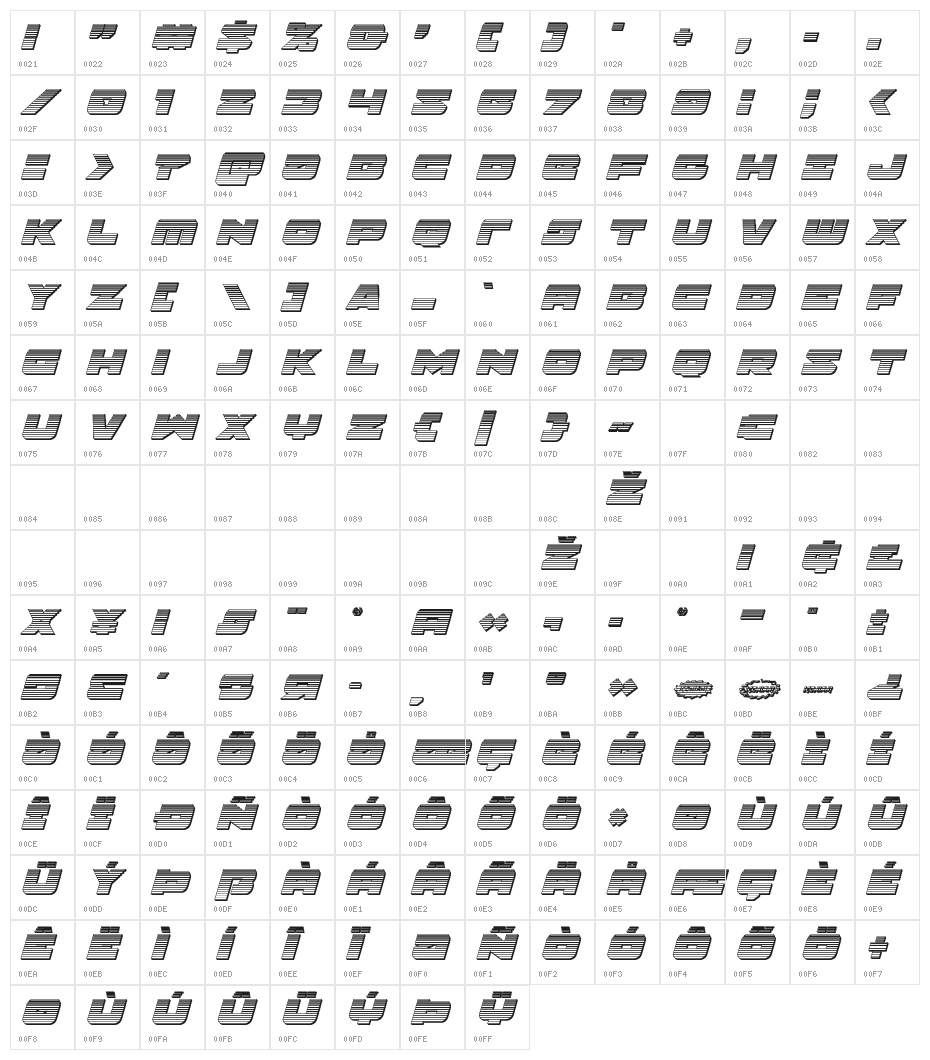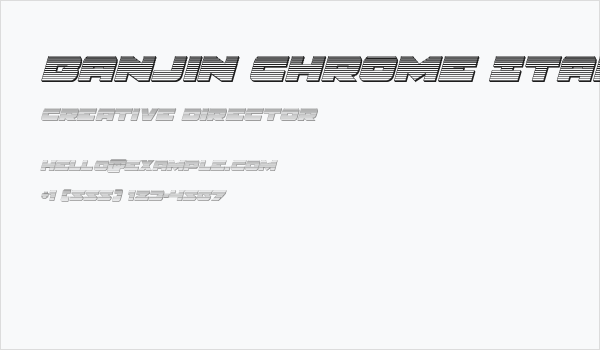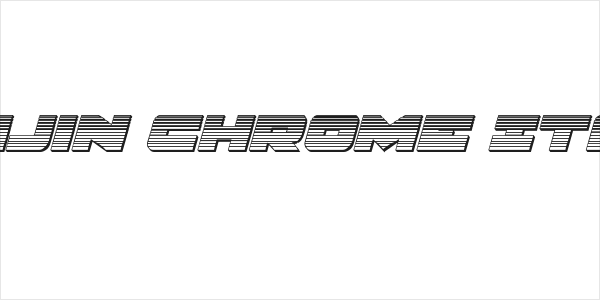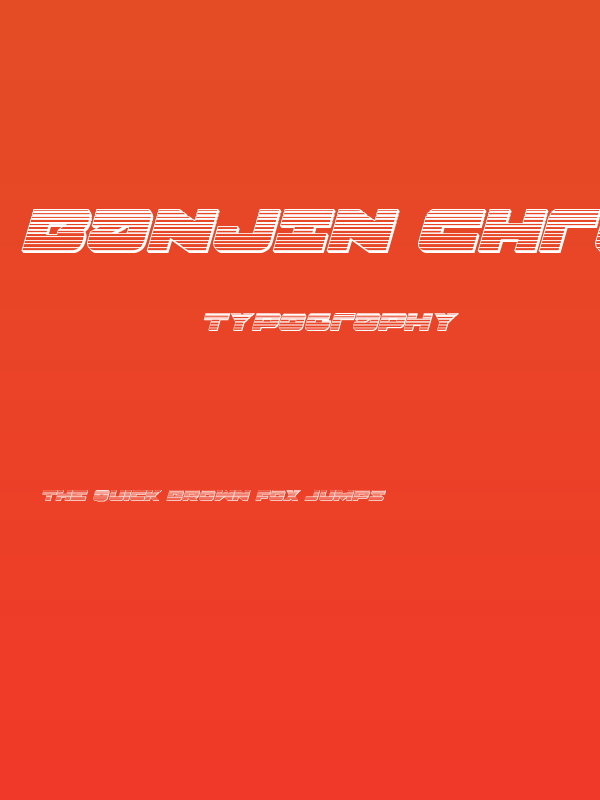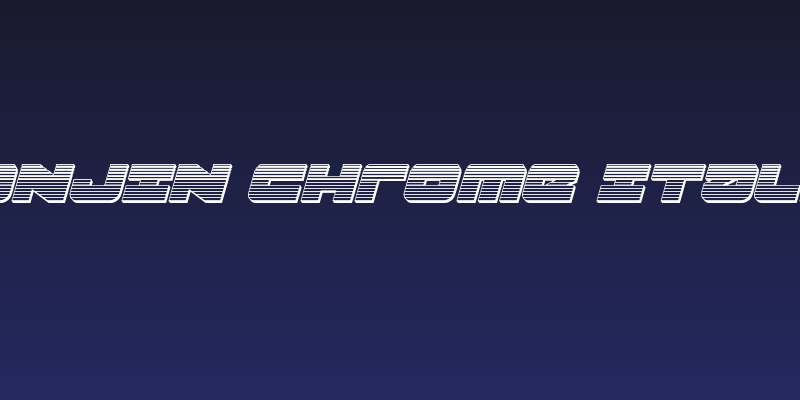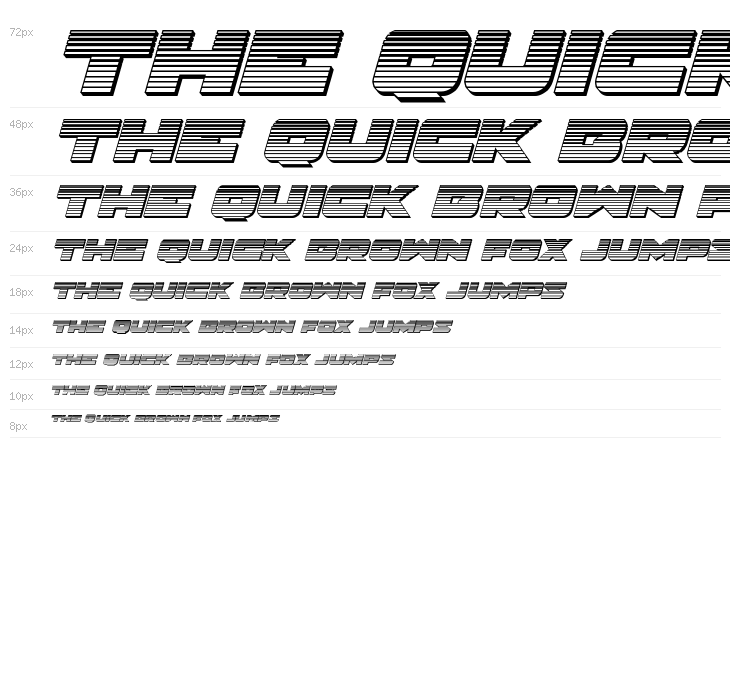
Banjin Chrome Italic Font
Banjin Chrome Italic Description
This font features a bold, futuristic design with a distinct chrome-like appearance. The characters are constructed with multiple horizontal lines, creating a layered effect that adds depth and dimension. The italic slant enhances its dynamic and forward-moving aesthetic, making it ideal for projects that require a modern and edgy look. The uppercase letters are particularly striking, with sharp angles and a strong presence. The numerals and special characters maintain the same stylistic elements, ensuring consistency across all text elements.
| Proposed Projects | Ideal for sci-fi themed designs, technology branding, video game titles, and futuristic posters. |